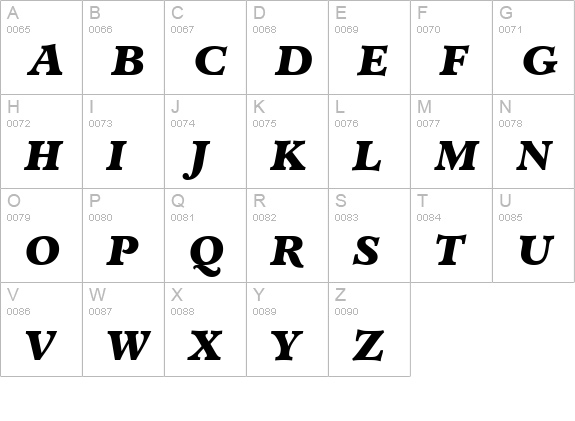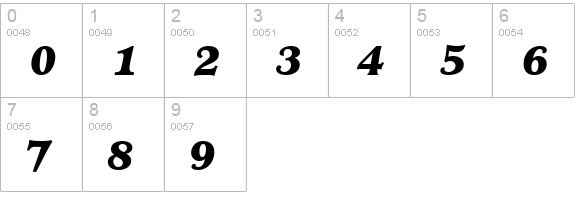
Cleric Black SSi Black Italic is a maximum-weight, dramatic, italic variant in the Cleric typeface family \xE2\x80\x94 well suited to maximum-impact headlines, posters, and packaging.
Cleric Black SSi Black Italic font is a striking and elegant typeface that exudes a sense of sophistication and professionalism. Its bold and italic design makes it perfect for adding emphasis and style to your projects. With its sleek and modern look, this font is ideal for a wide range of design applications, from branding to editorial design. What makes Cleric Black SSi Black Italic font even more appealing is that it is available for free download at FontsMarket.com. This means you can easily access this stylish and versatile font without any cost, making it a valuable addition to your font collection. Whether you're working on a personal project or a professional design, Cleric Black SSi Black Italic font is sure to make a bold statement and elevate your typography game.